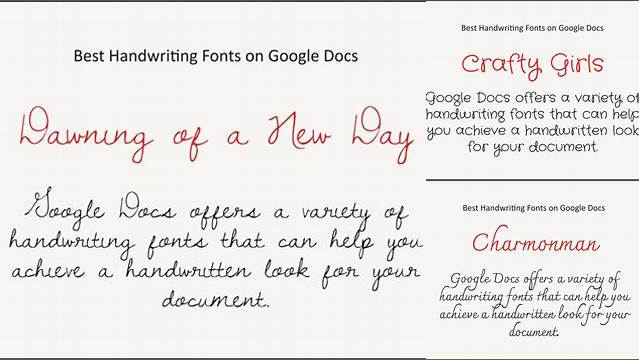
Best Messy Handwriting Fonts For Google Docs
Hey guys! Ever wanted to jazz up your Google Docs with a touch of personal flair, something that screams "I wrote this!" instead of the usual sterile Times New Roman? Well, you're in luck! This article is your ultimate guide to finding the best messy handwriting fonts you can use right in Google Docs. We're talking fonts that look like scribbled notes, elegant cursive, or even that cool, slightly chaotic handwriting you see in your friend's journal. We'll dive into the fonts themselves, how to install them (if needed), and how to make your documents stand out. So, buckle up, and let's get ready to ditch the boring fonts and embrace the wonderfully messy world of handwritten style!
1. Why Choose Messy Handwriting Fonts in Google Docs?
So, why bother with fonts that look like they were written with a pen that's seen better days? Well, there are a bunch of awesome reasons, friends. First off, it adds personality. Let's face it, a document in a handwritten font just feels more…human. It's less formal, more inviting, and can make your writing feel more approachable. Imagine sending a love letter, a birthday card, or even a fun invitation using a generic font. Doesn't quite have the same oomph, right? Now, picture that same message in a font that mimics your own handwriting or something similar. It instantly feels more heartfelt and unique. Then there's the visual appeal. Messy handwriting fonts can be incredibly stylish. They can add a touch of artistry to your documents, transforming them from bland text into something visually engaging. Think of it as adding a splash of color or a cool design element to your work. Moreover, they can be super effective for specific purposes. If you're designing a flyer for a craft fair, creating a quirky social media post, or wanting to add a personal touch to your online course, a messy handwriting font can be your secret weapon. Also, it can be used for things like: creating eye-catching headlines, making your brand more memorable, making your content feel more creative and fun or even making your documents feel less formal. Plus, in a world saturated with digital content, a font that mimics handwriting can help you stand out from the crowd. It’s a subtle way to make your message more memorable and grab the attention of your audience. So, whether you're a student, a creative professional, or just someone who loves to experiment, embracing these fonts can be a game-changer.
2. Top Handwriting Fonts Available Directly in Google Docs
Alright, let's get down to brass tacks and talk about some of the best messy handwriting fonts you can find right now in Google Docs, no extra downloads required. Google Docs has a pretty decent selection built right in, so you can start experimenting immediately. One of the most popular and versatile options is “Patrick Hand”. This font has a friendly, slightly rounded appearance that's reminiscent of a neat, but still clearly handwritten, style. It's super readable, making it ideal for body text as well as headings. Next up, we've got “Caveat”, which offers a more casual and relaxed feel. It has a slightly uneven baseline and varying stroke widths that give it a genuine handwritten look. Caveat is excellent for adding a touch of playfulness to your documents, making it perfect for invitations or creative projects. Then there's “Homemade Apple”. If you're looking for something that feels like it was truly scrawled by hand, this font is for you. With its slightly imperfect shapes and uneven spacing, Homemade Apple perfectly captures the look of a real pen on paper. Finally, for a more elegant touch, you can try “Dancing Script”. While not strictly “messy,” it has a beautiful cursive style that evokes a sense of grace and sophistication. Although not ideal for large blocks of text, it's perfect for headings, quotes, or highlighting key phrases. These are the fonts readily available in Google Docs, but the platform offers a whole library of other fonts, many of which can be considered messy handwriting styles. You can access them by clicking the font dropdown menu and then selecting “More Fonts.” It’s like opening a treasure chest filled with typography goodies! You can also filter fonts by “Handwriting” to narrow down your search. Go on, explore, and find your perfect handwriting font!